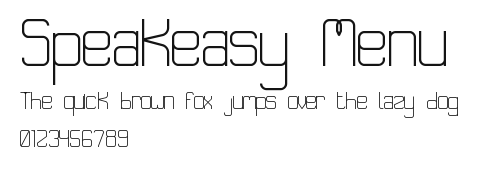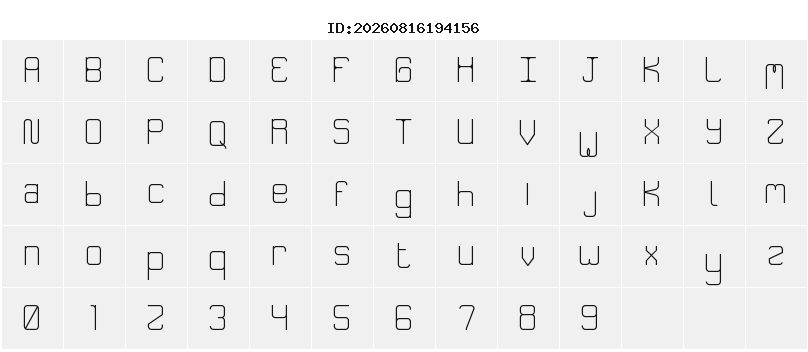
• Font Name: Speakeasy Menu
• Description: A font by Brandon Secrist, made using Adobe Illustrator and Birdfont
Speakeasy Menu.ttf is a modern, elegant sans-serif font designed for ultimate readability and visual harmony. Perfect for branding, headlines, web design, and print materials.